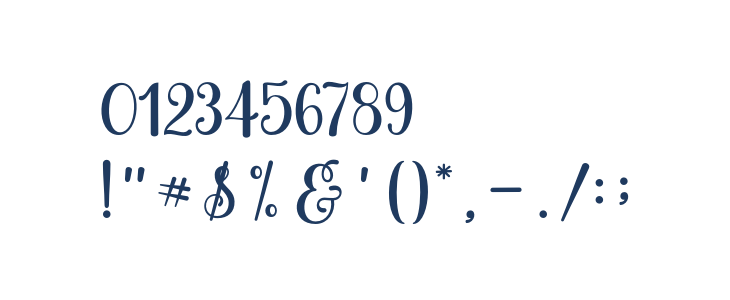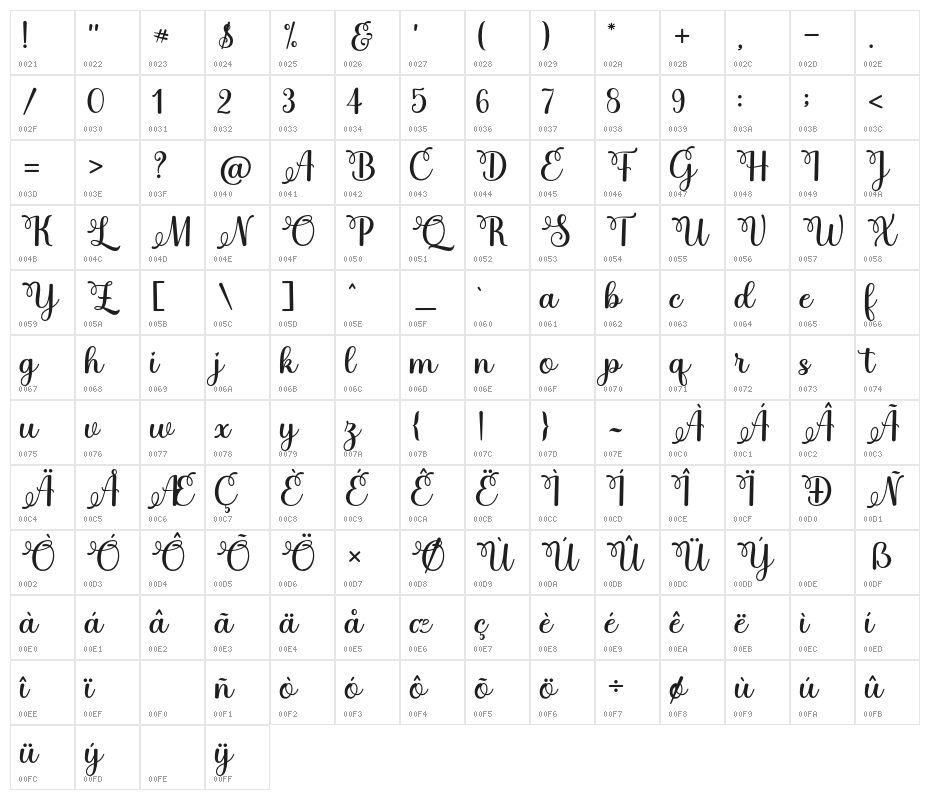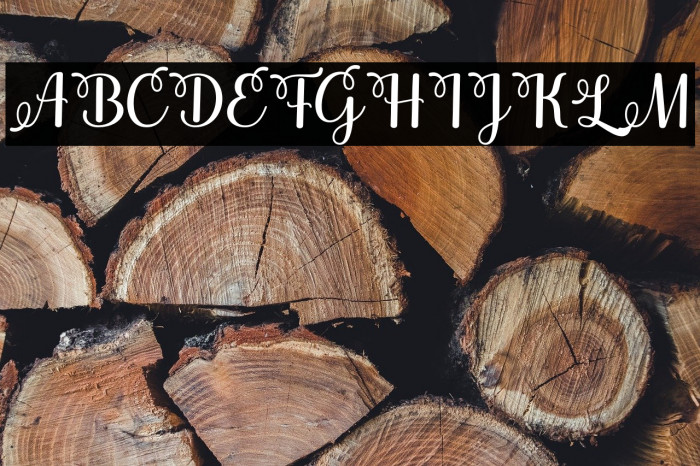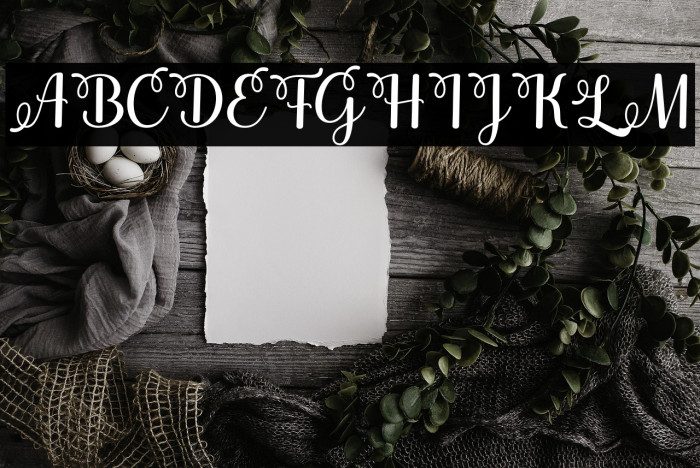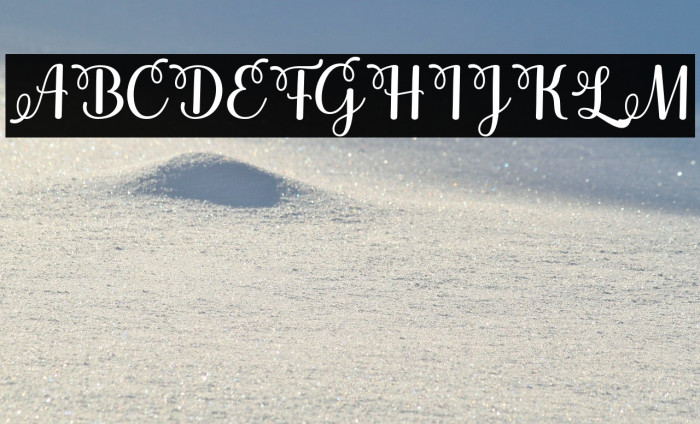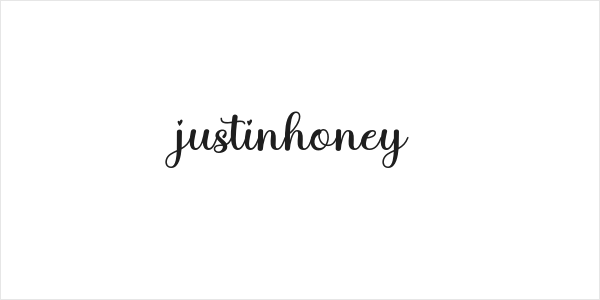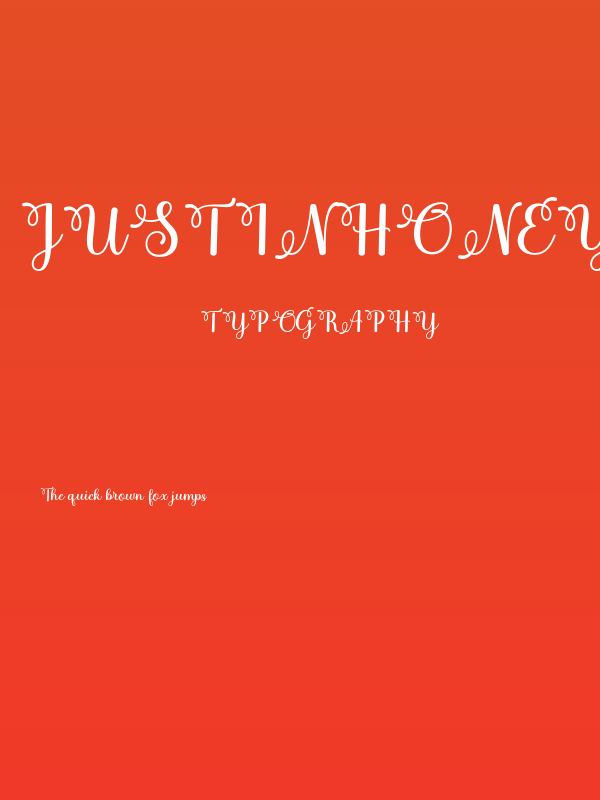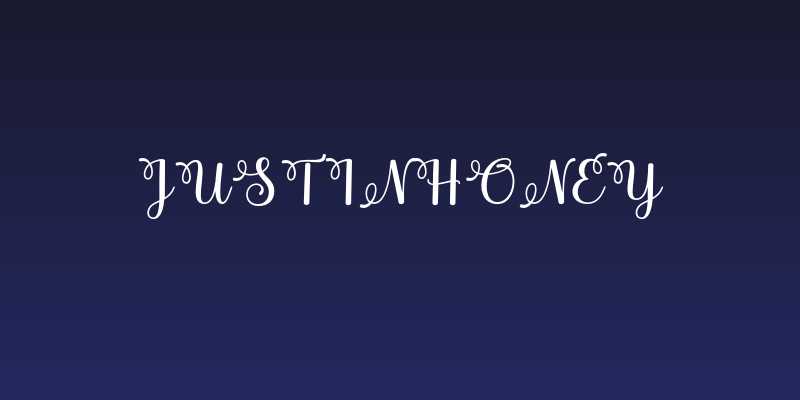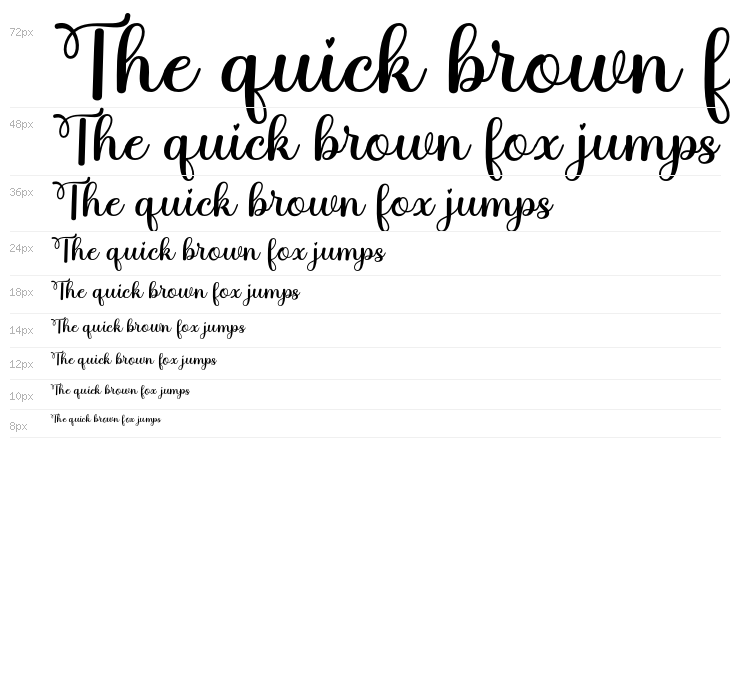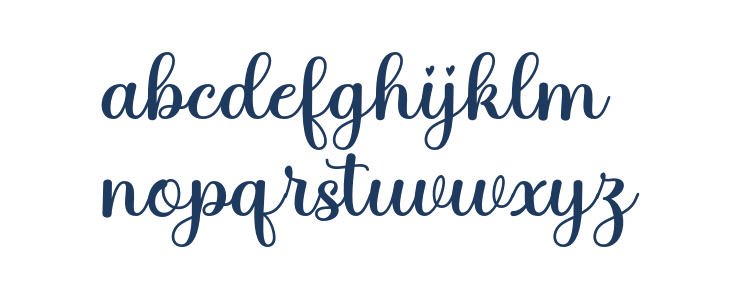
justinhoney Font
justinhoney Description
This font features a playful and elegant script style with a modern twist. The uppercase letters are characterized by their flowing, decorative loops and swashes, giving them a whimsical and artistic appearance. The lowercase letters maintain a consistent, smooth flow with rounded edges, enhancing readability while retaining a stylish flair. The numerals are bold and clear, complementing the overall design with a touch of sophistication. Special characters are creatively integrated, maintaining the font's cohesive aesthetic. This font is ideal for projects that require a touch of elegance and creativity, such as invitations, branding, and decorative prints.
| Use Case | Headlines, Logos, Decorative text |
| Proposed Projects | Ideal for invitations, branding, decorative prints, and creative projects. |